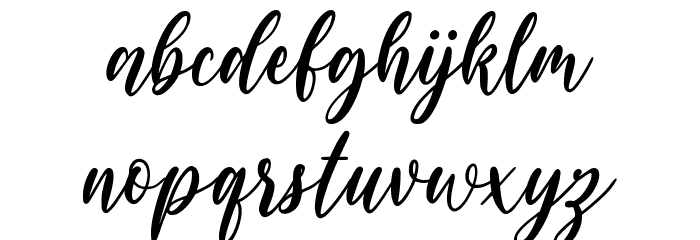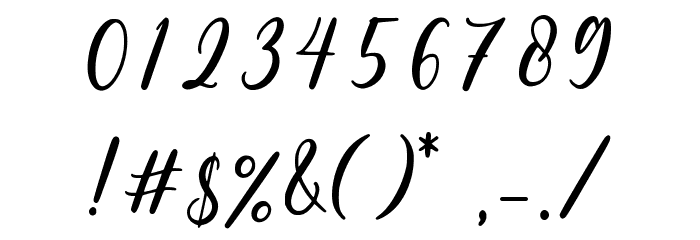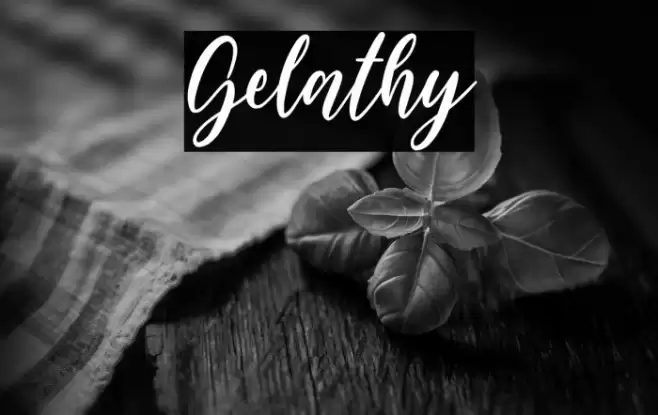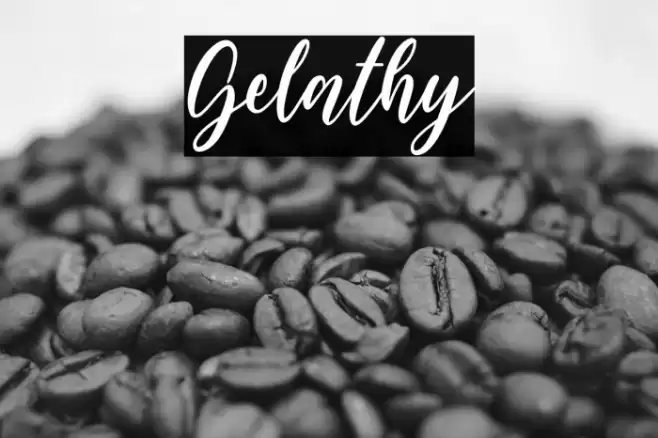
Gelathy Font
This elegant script font features a flowing, cursive style with smooth, connected strokes that give it a handwritten appearance. The uppercase letters are tall and graceful, while the lowercase letters maintain a consistent flow, enhancing readability. The numerals and special characters complement the alphabet with their stylish curves and loops. The font's overall design is sophisticated and artistic, making it suitable for projects that require a personal touch.
A flowing, cursive script font with elegant, connected strokes.
- Proposed Projects: Ideal for wedding invitations, greeting cards, branding, and logo design.
- Category: Script
- Overall Style: Elegant
- Use Case: Logos, Invitations, Greeting Cards